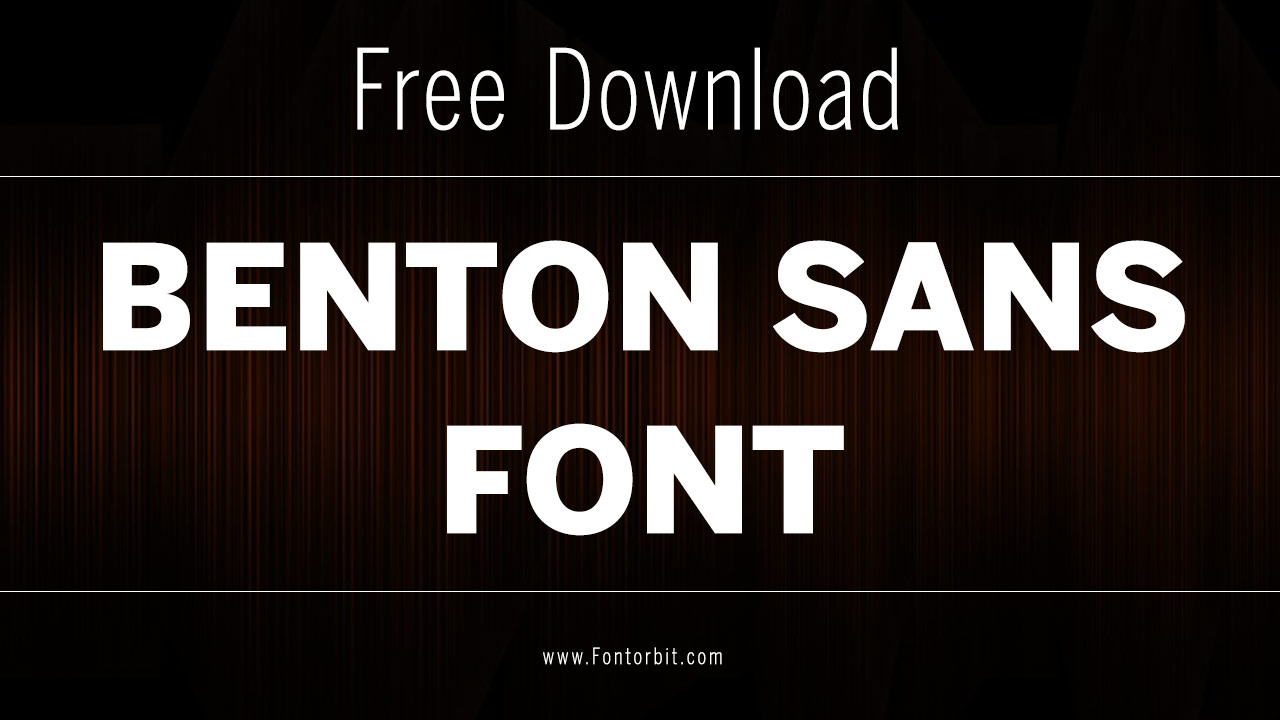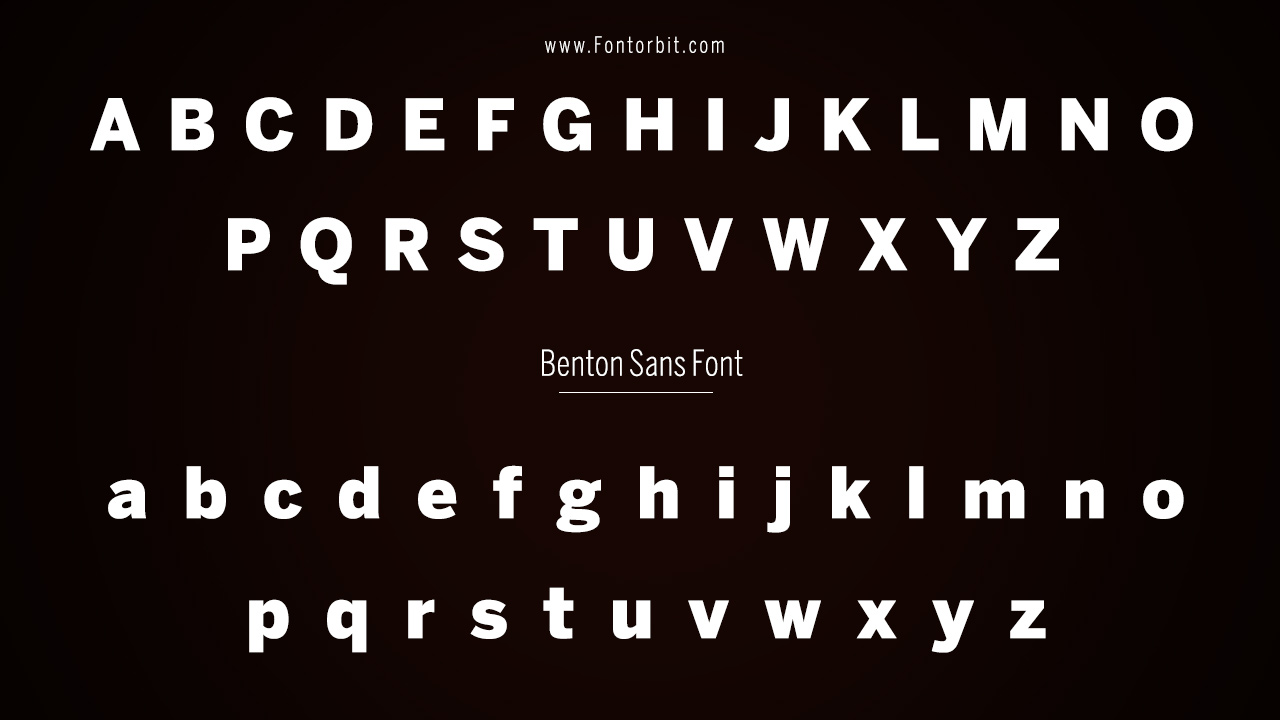
Benton Sans Pro is a contemporary sans-serif typeface designed by David Berlow and published by Font Bureau. Released in 2004, it is recognized for its clean, geometric lines and modern aesthetic.
This font family draws inspiration from classic typefaces while offering designers a fresh, versatile option. The Benton Sans family has been praised for its legibility in both print and digital formats.
Benton Sans Family Includes
Benton Sans is crafted with versatility in mind, making it suitable for numerous applications. The family includes several weights and styles to accommodate diverse design needs:
- Benton Sans Pro Regular
- Benton Sans Pro Thin
- Benton Sans Pro Extra Light
- Benton Sans Pro Extra Light Italic
- Benton Sans Pro Light
- Benton Sans Pro Light Italic
- Benton Sans Pro Book
- Benton Sans Pro Book Italic
- Benton Sans Pro Regular
- Benton Sans Pro Italic
- Benton Sans Pro Medium
- Benton Sans Pro Medium Italic
- Benton Sans Pro Bold
- Benton Sans Pro Bold Italic
- Benton Sans Pro Black
- Benton Sans Pro Black Italic
- Benton Sans Pro Condensed Light
- Benton Sans Pro Condensed
- Benton Sans Pro Condensed Medium
- Benton Sans Pro Condensed Bold
- Benton Sans Pro Condensed Black
Benton Sans Pro’s versatility allows it to fit seamlessly into various contexts, making it an excellent choice for a wide range of applications:
- Print Media
- Digital Media
- Corporate Branding
- Editorial Work
- Magazines
- Websites and apps
- Corporate branding
- logos and business cards
Benton Sans Pro is a versatile and stylish font that adapts well to various design applications. Its modern look and excellent legibility make it a valuable asset for print and digital projects. Whether you’re working on corporate branding or editorial content, Benton Sans Pro can enhance your design work and communication.